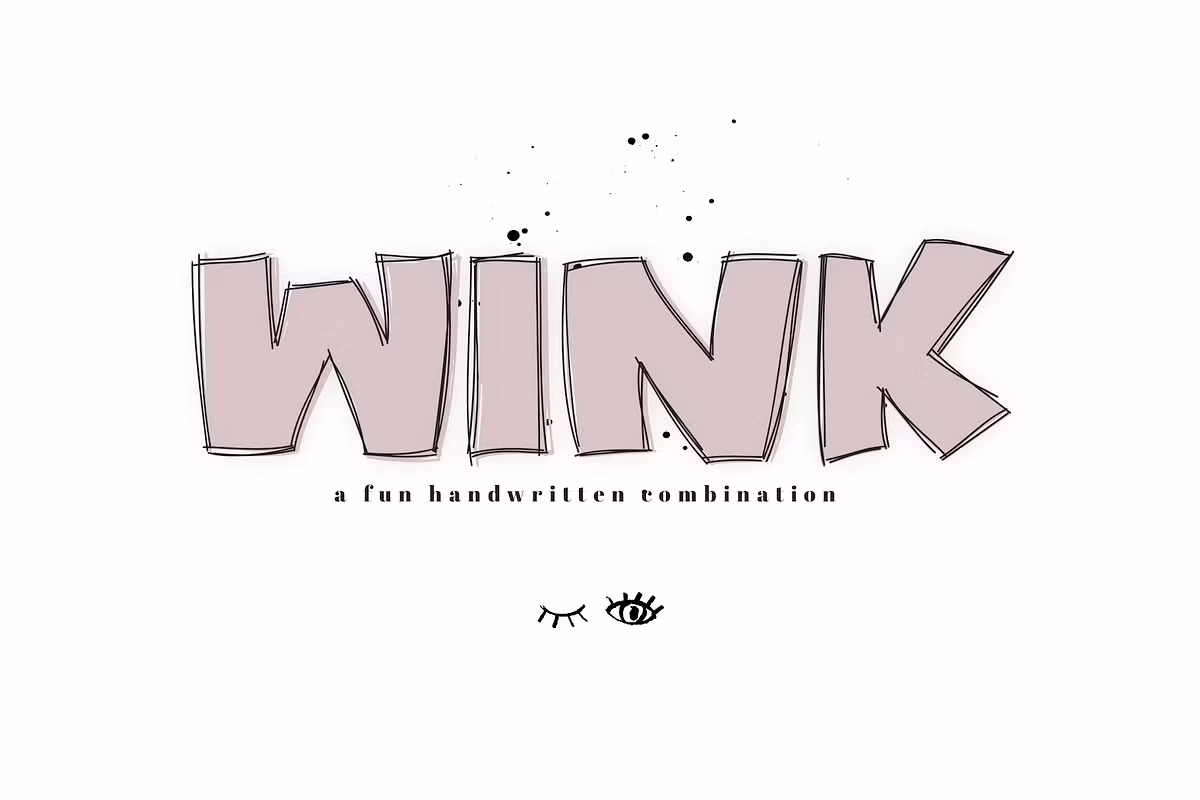
Wink - A Bold Handwritten Font Free Download
The Wink - A Bold Handwritten Font Free Download is a playful and energetic typeface that combines the charm of handwriting with a confident, bold style. Perfect for logos, social media graphics, greeting cards, packaging, and creative branding, Wink adds a personal, expressive touch to any design.
Its thick strokes and slightly irregular shapes give it a natural, handcrafted feel while maintaining strong readability. The font includes uppercase and lowercase characters, numbers, punctuation, and multilingual support, offering versatility for both casual and eye-catching layouts.